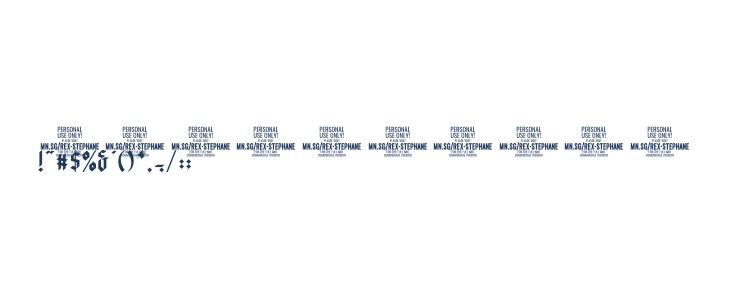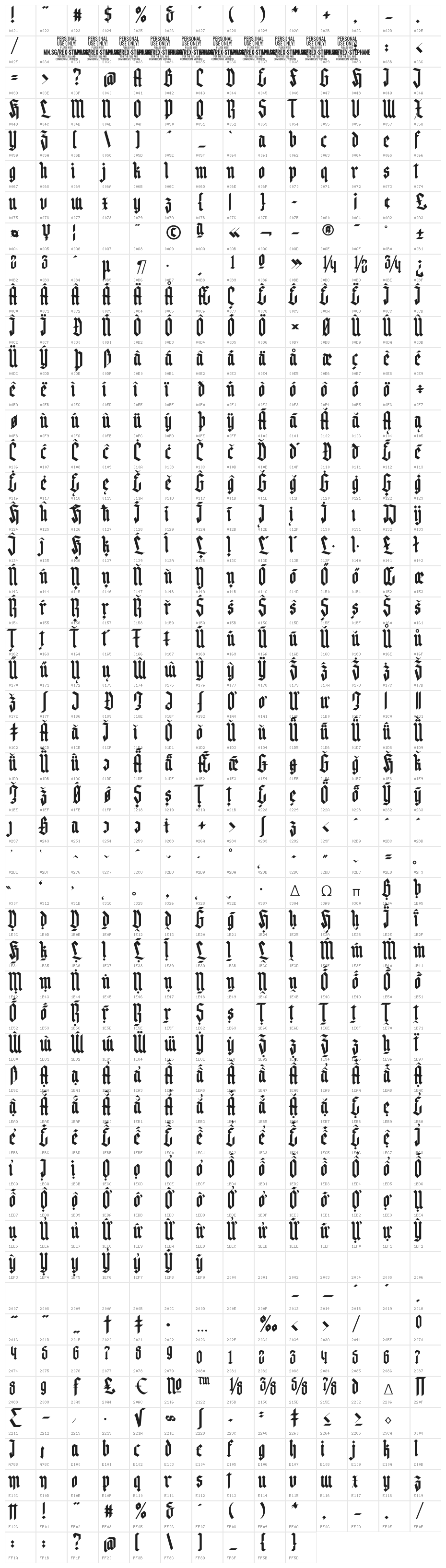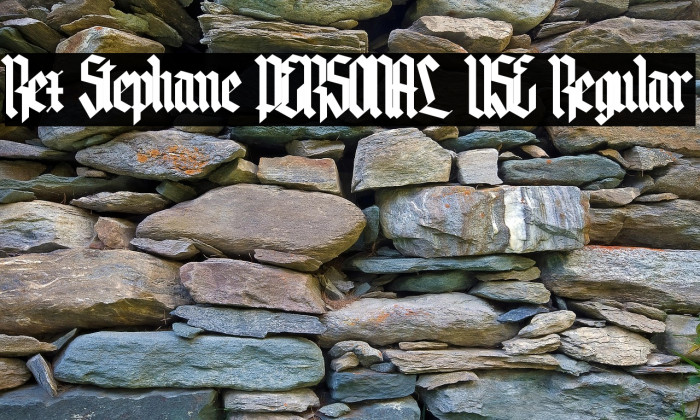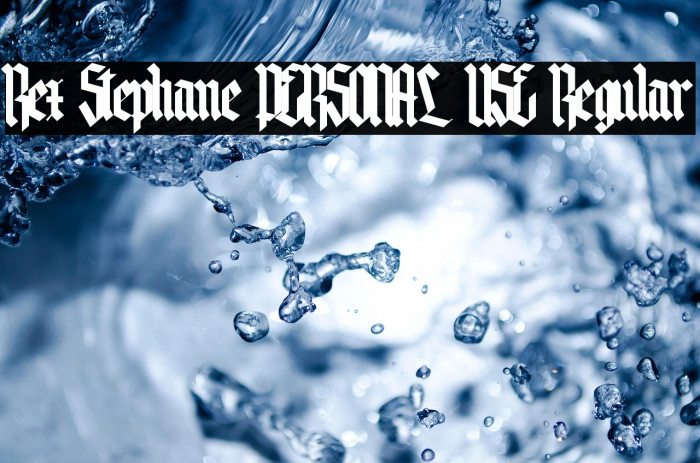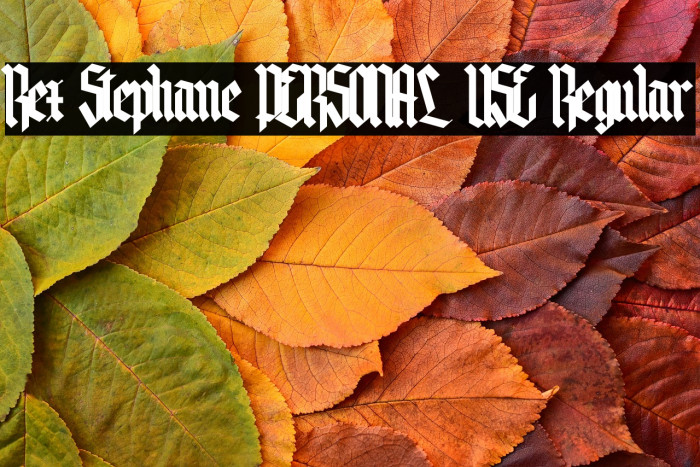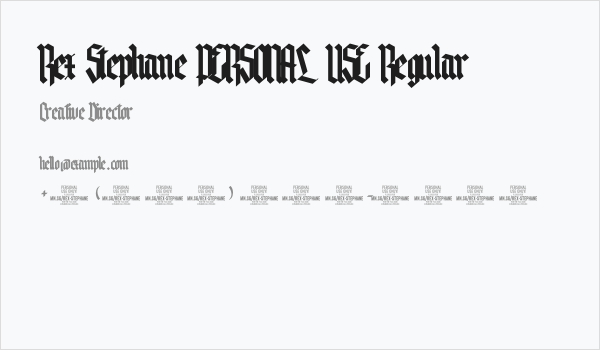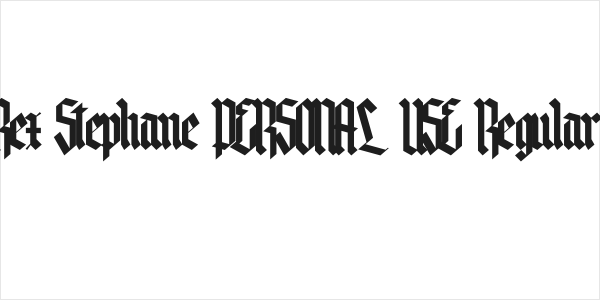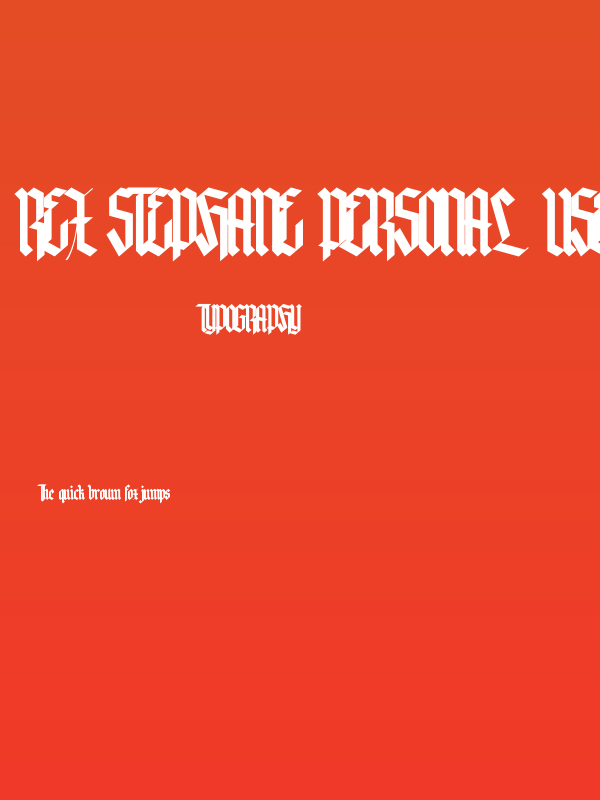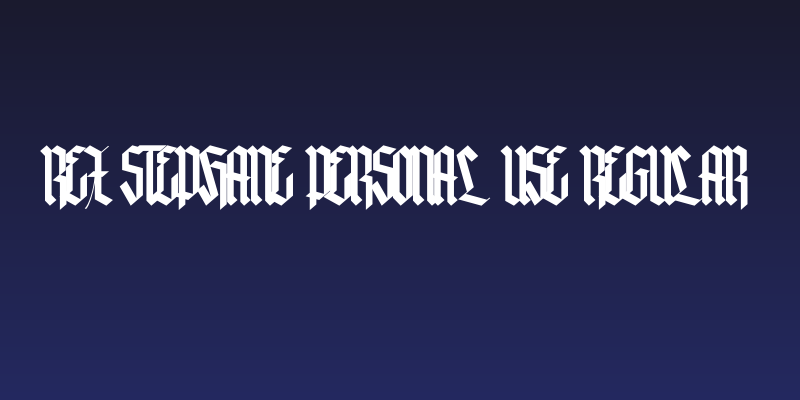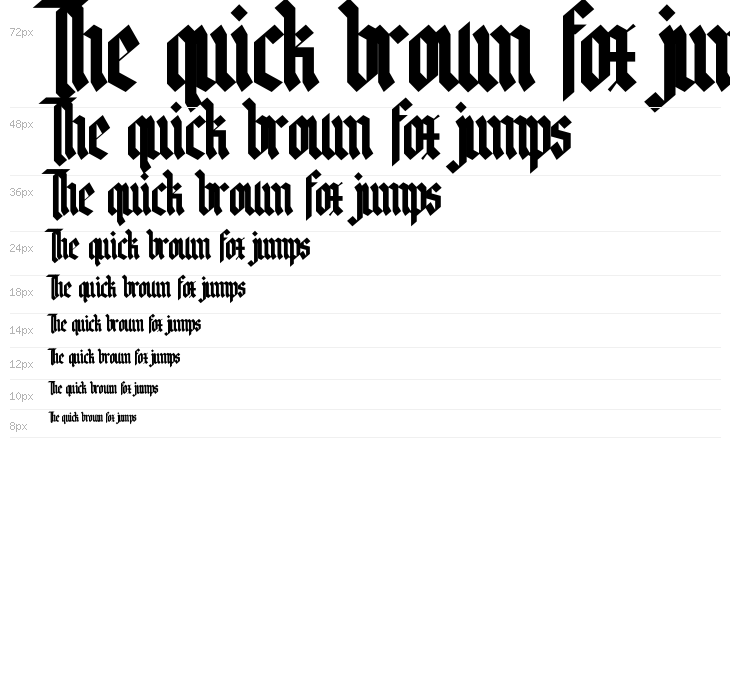
Rex Stephane PERSONAL USE Regular Font
Rex Stephane PERSONAL USE Regular Description
This font exhibits a bold and striking blackletter style, characterized by its sharp, angular lines and intricate detailing. The uppercase letters are particularly ornate, with dramatic flourishes and a strong vertical emphasis, reminiscent of traditional Gothic script. The lowercase letters maintain the same angular aesthetic, providing a cohesive look across the typeface. The numerals and special characters are equally stylized, ensuring consistency throughout. This font's heavy weight and high contrast in stroke thickness make it highly impactful and visually arresting.
| Use Case | Logos, Posters, Headlines |
| Proposed Projects | Ideal for projects that require a dramatic and historical feel, such as medieval-themed events, vintage posters, or branding for craft breweries. |